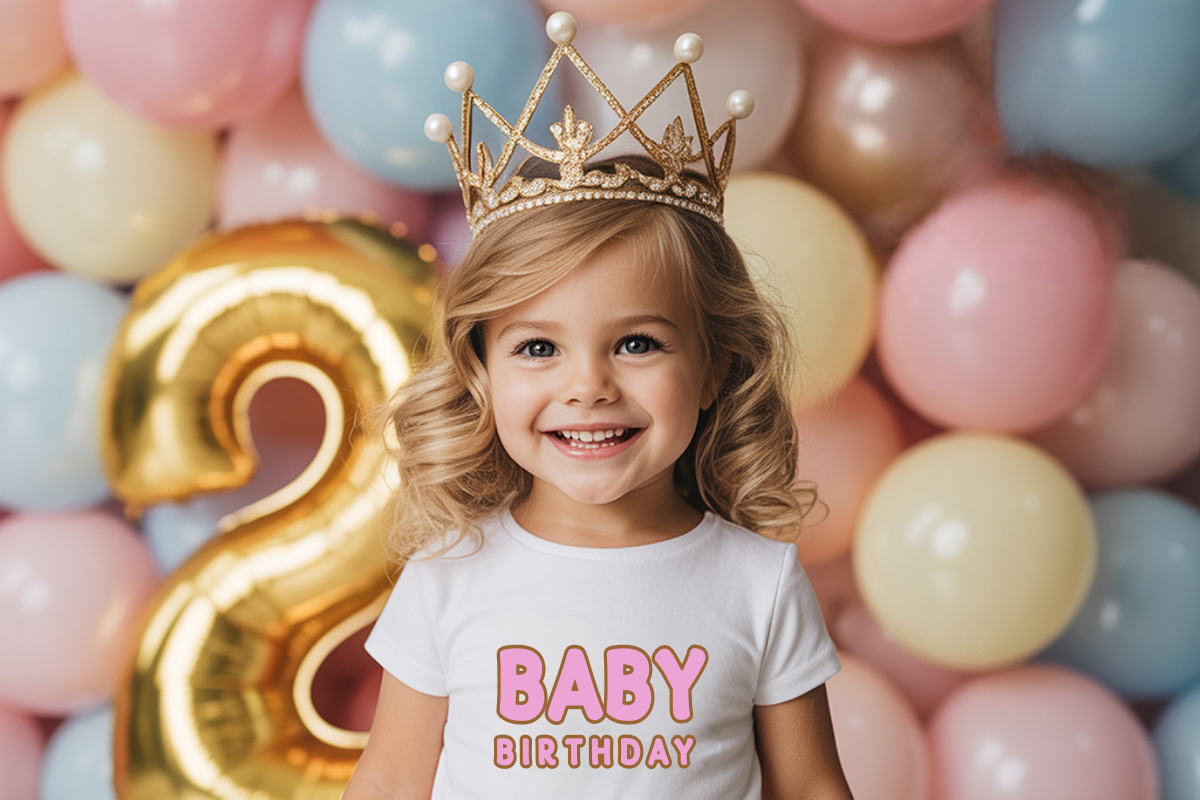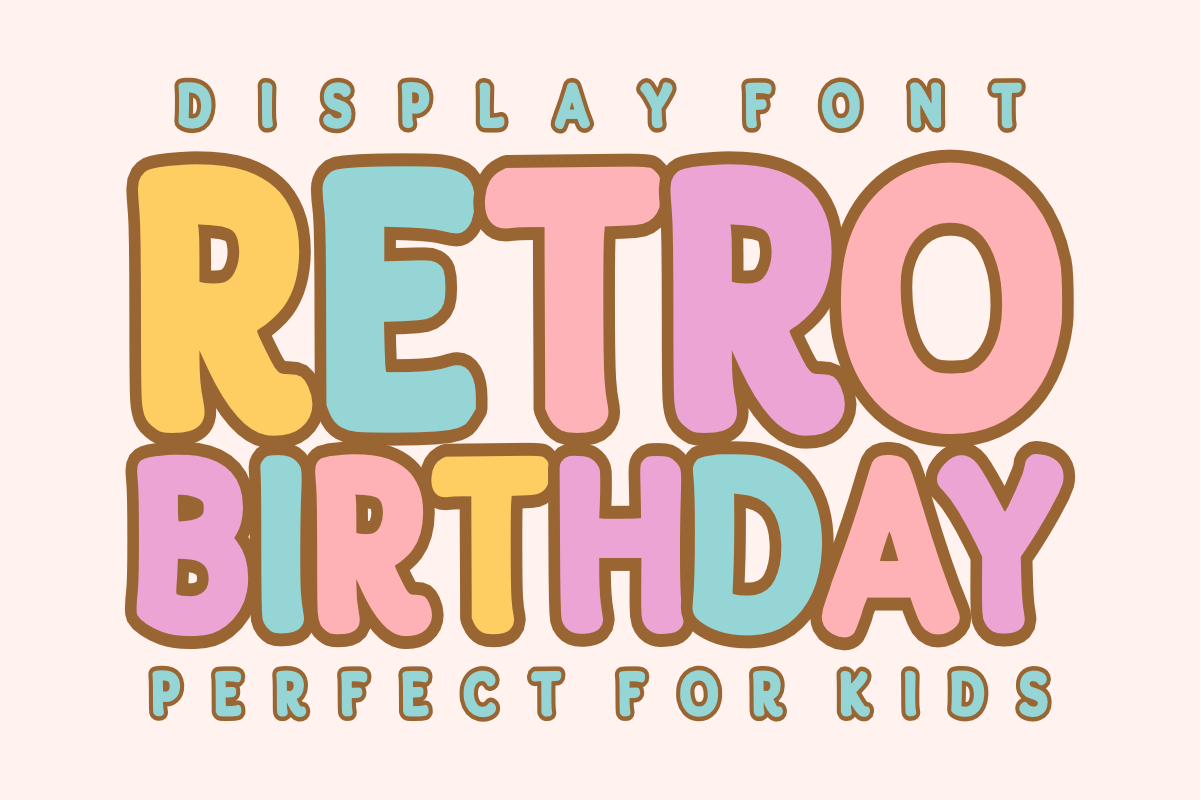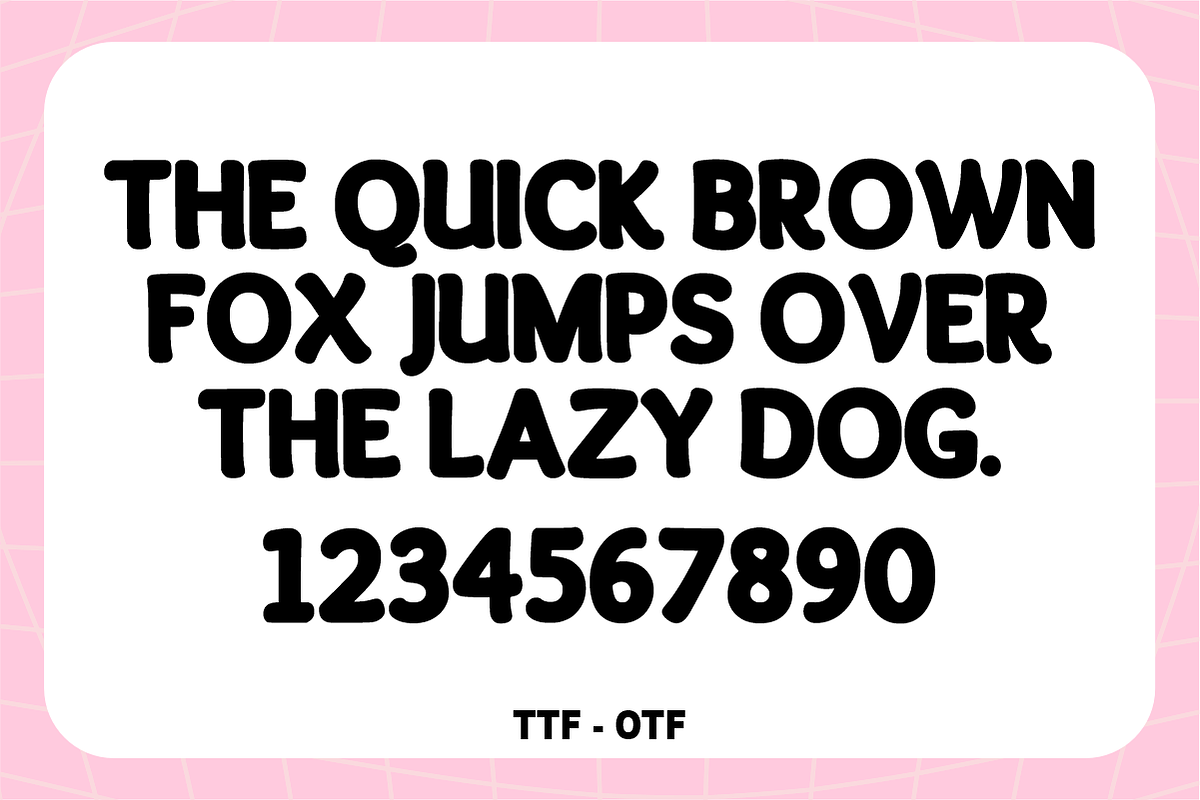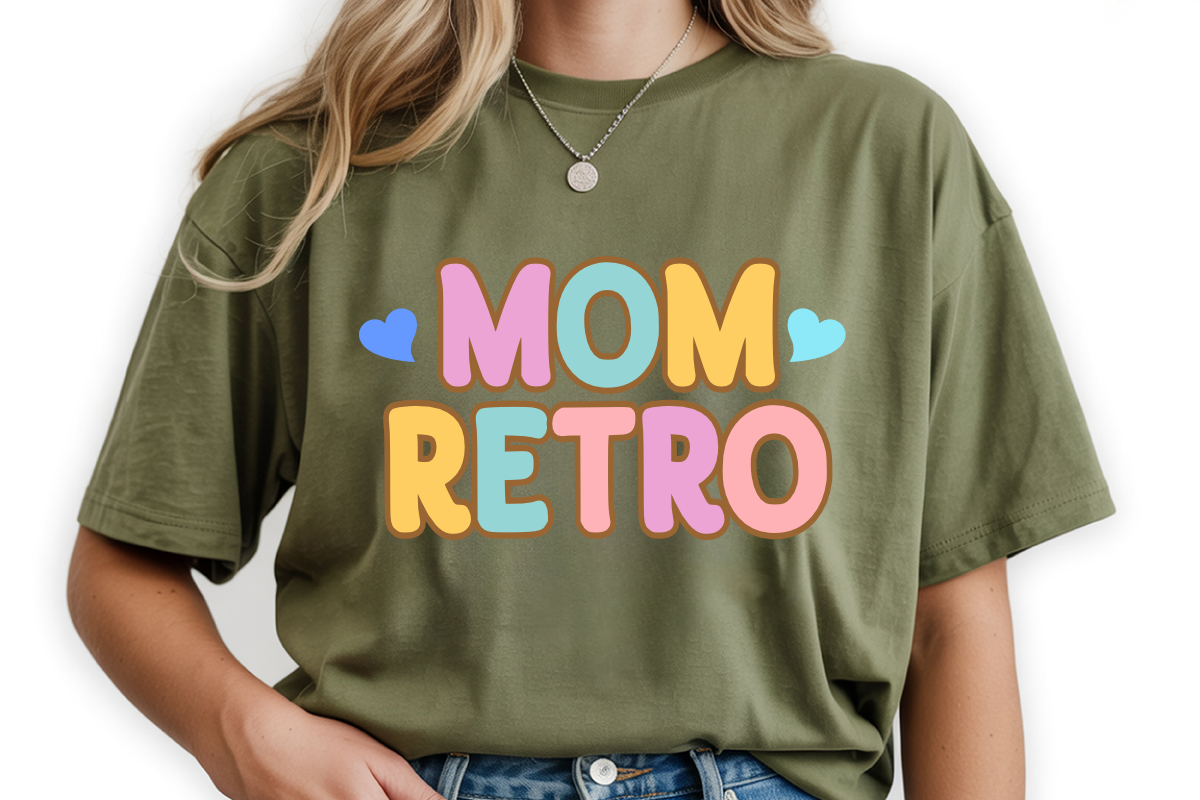
Retro Birthday - Display Font Types
Retro Birthday – Playful Bubbly Kids Display Font ✨🎈
Bring the grooviest vibes to your next celebration!
Retro Birthday is a bold, chunky, and delightfully bubbly display font that perfectly captures the fun of 70s nostalgia and modern kids' design. With its smooth curves and thick, rounded letterforms, this font brings an energetic and friendly personality to every project. Whether you're designing for a first birthday or a retro-themed event, this font is engineered to be eye-catching and incredibly easy to read.
🌟 Why Retro Birthday is the Perfect Choice:
Groovy Retro Aesthetic: Perfectly taps into the trending "modern retro" and "bubbly" styles currently dominating social media and merchandise.
High Impact & Bold: Its thick silhouette makes it ideal for headlines, ensuring your text pops against any background.
Kid-Friendly Design: The soft edges and playful shapes make it approachable and perfect for children-focused branding.
Complete Character Set: Bold Uppercase Letters (A-Z).
Numbers & Symbols: Full numerals (0-9) and essential simple punctuation.